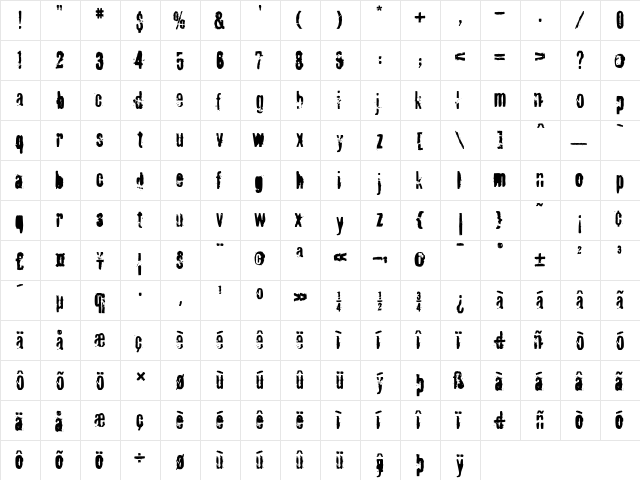
FragileICG Medium
| Foundry | Image Club Graphics, Inc |
Design Context for FragileICG Typeface
FragileICG is a composed and adaptable typeface that performs quietly and consistently across a wide range of design contexts.